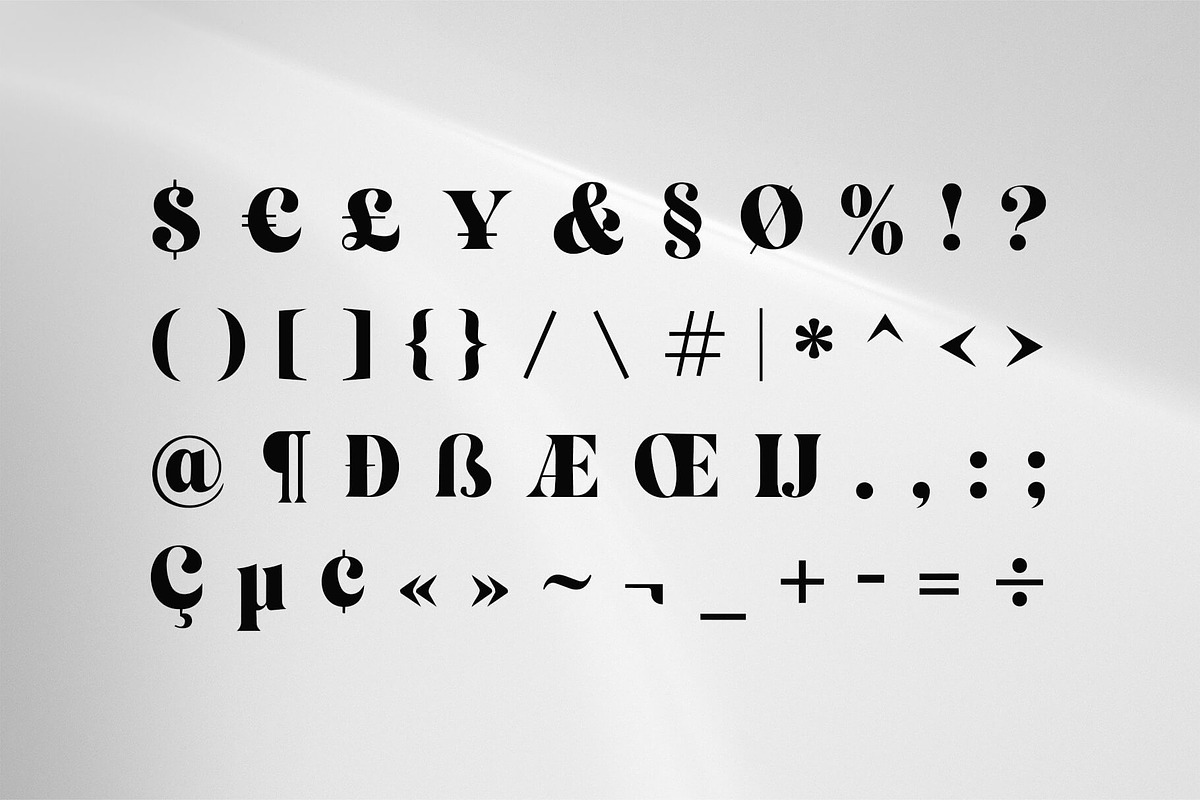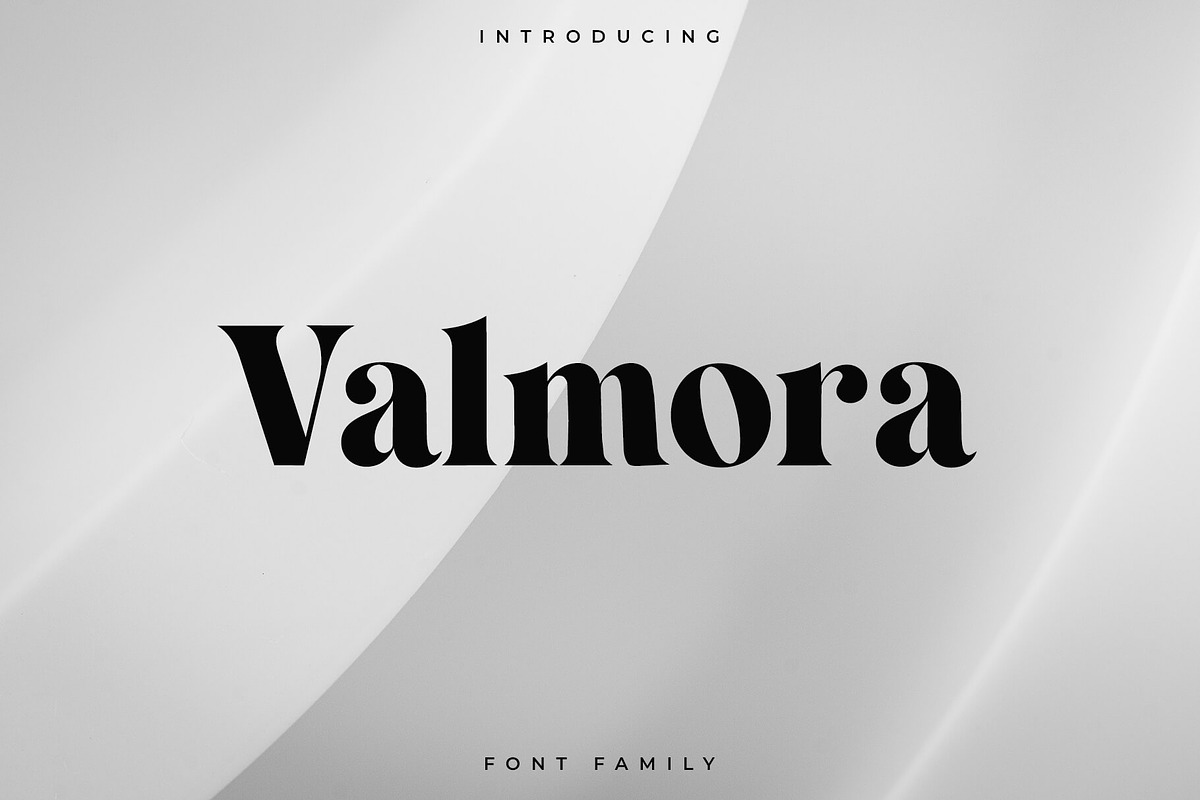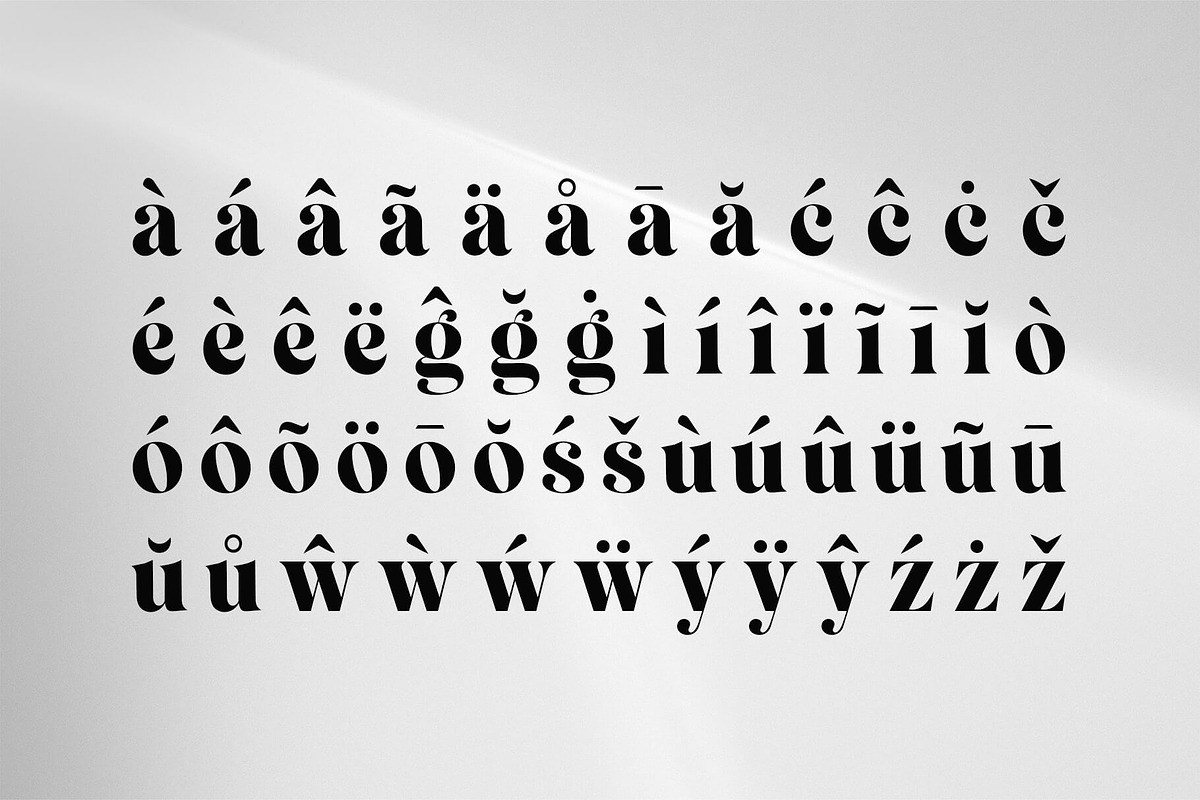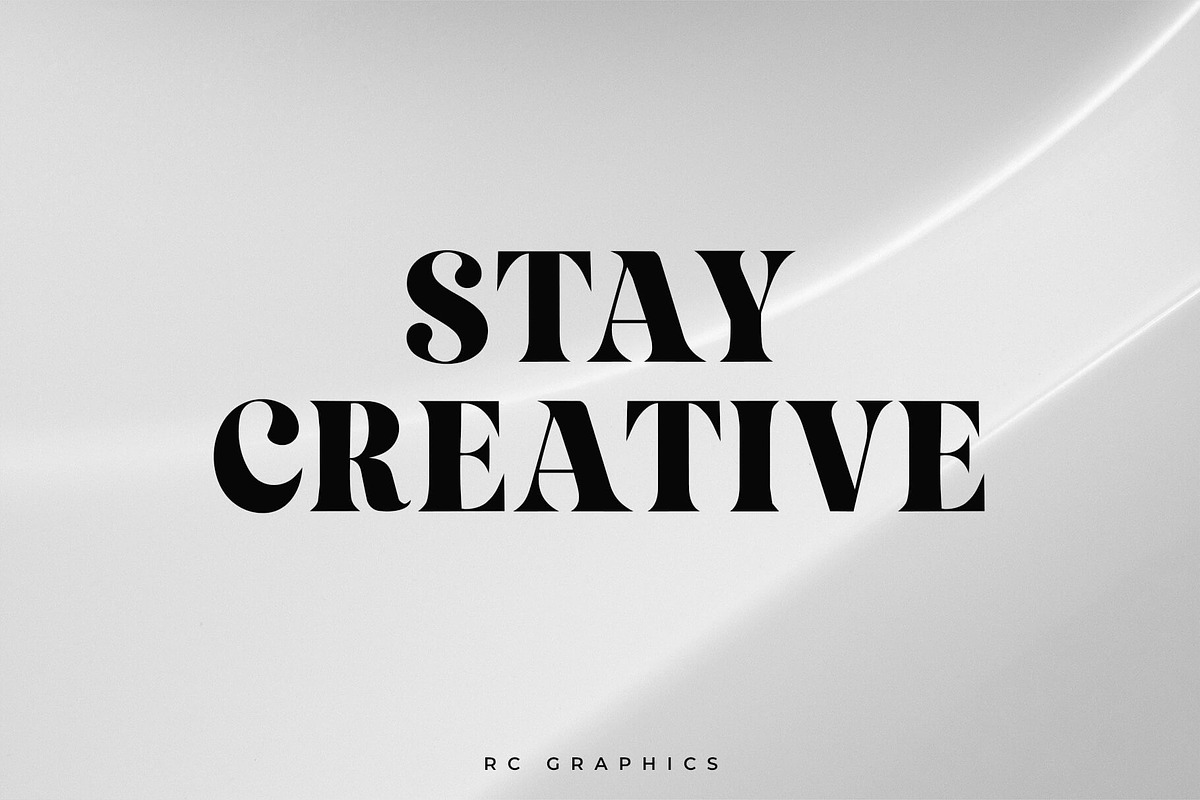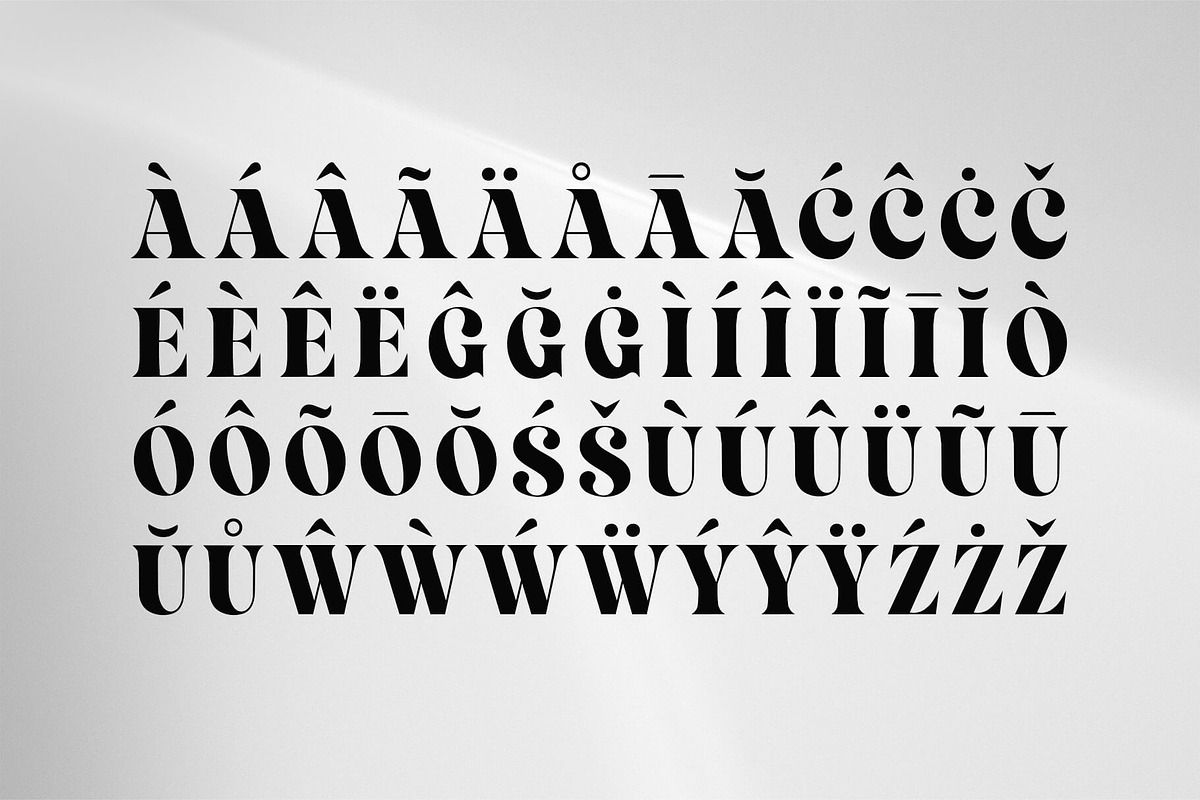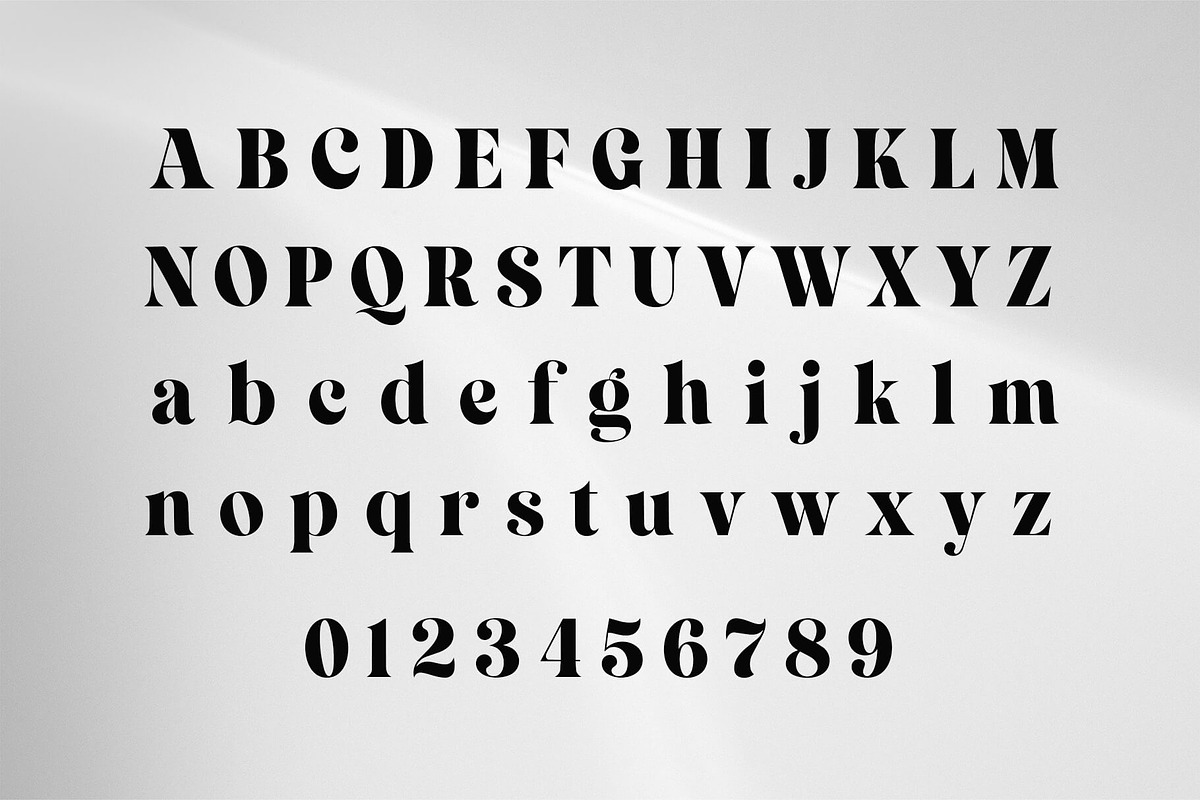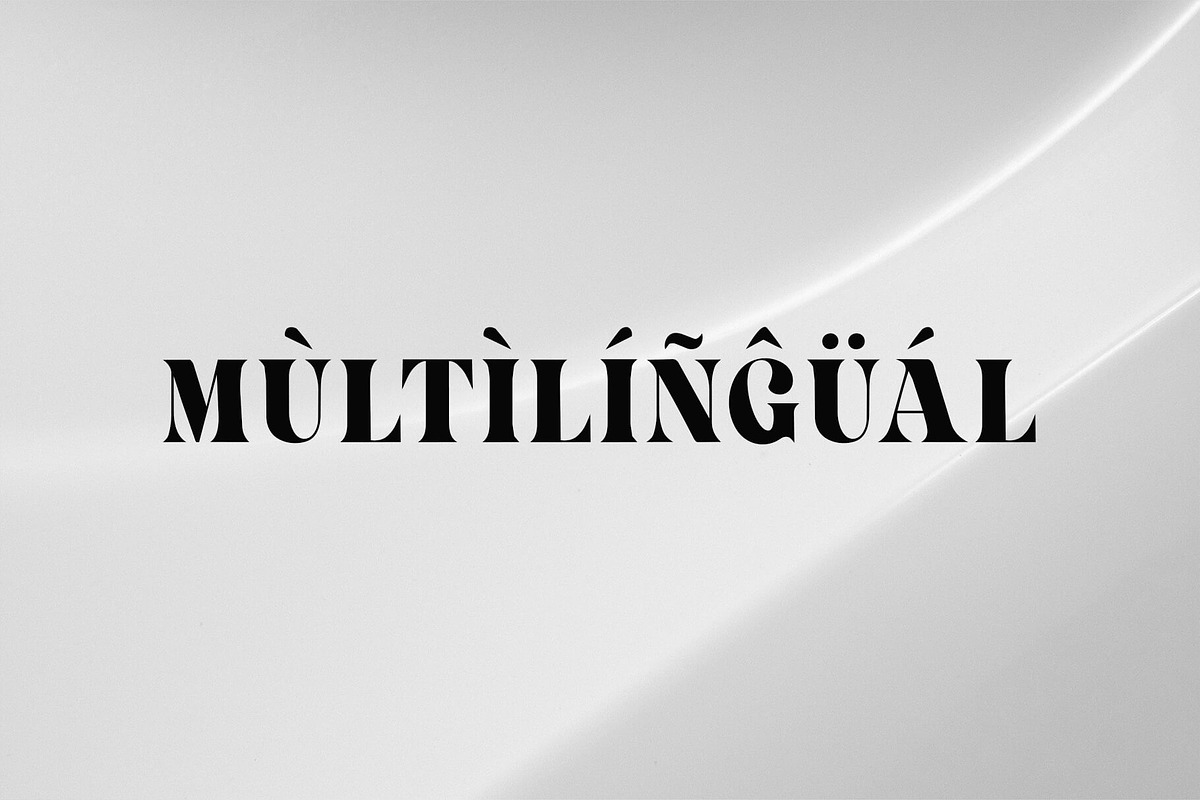
Valmora - Vintage Display Serif
Valmora is a bold and expressive display serif that blends 1970s-inspired vintage character with contemporary sophistication. Designed to make an immediate visual impact, it combines generous curves, sculpted serifs and strong letterforms to create a distinctive typeface full of personality.
Its heavy weight, subtle stroke contrast and softly flared details give Valmora a warm editorial quality while maintaining excellent readability. Each character features slightly organic shapes and carefully crafted details, giving the font a refined, handcrafted feel rather than a rigid geometric appearance.
Perfect for projects that need a confident, nostalgic and premium identity, Valmora works beautifully at large sizes and brings instant character to any composition.
Uppercase letters
Lowercase letters
Symbols
Accented characters
Multilingual (Foreign language characters)